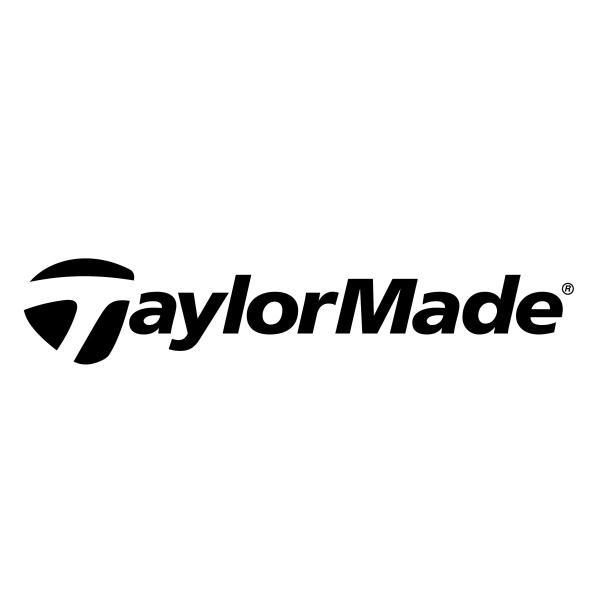
TaylorMade Font
ApparelTaylorMade is a golf equipment and apparel brand that was founded in 1979. It is known for producing high-quality and innovative golf clubs, balls, and accessories.
It is likely that the logo of TaylorMade utilizes the Frutiger Black Italic font, which is a humanist sans-serif typeface created by Adrian Frutiger. You can view and learn more about the font family here.